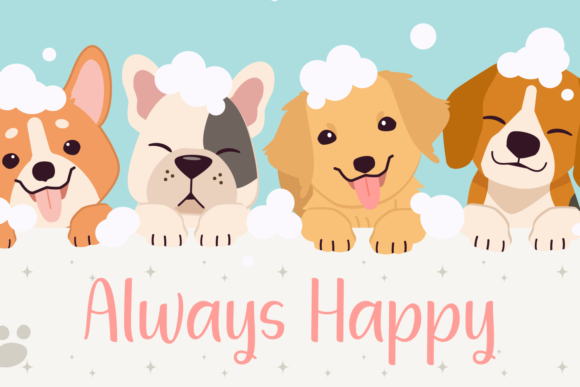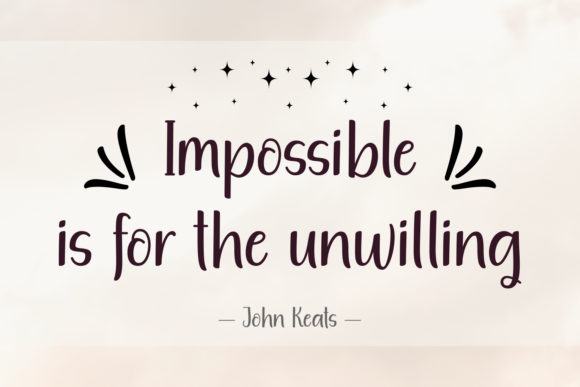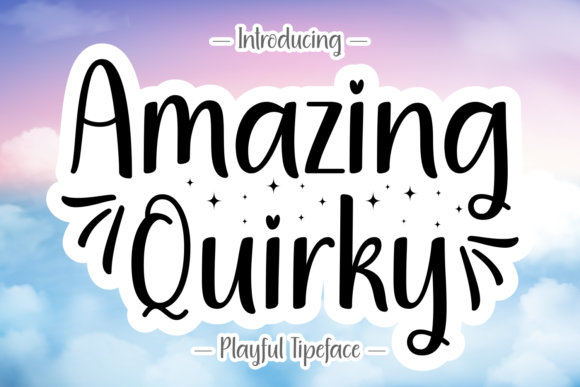
Amazing Quirky Font
Amazing Quirky Font is a free, unique, and cool font. This font is FREE to Download and suitable for designs such as t-shirts, sportswear, posters, logos, advertisements, clothing, and more.
Amazing Quirky Font is a free, unique, and cool font. This font is FREE to Download and suitable for designs such as t-shirts, sportswear, posters, logos, advertisements, clothing, and more. Whatever the topic, this font will be a great asset to your font collection, as it has the potential to enhance any creation.